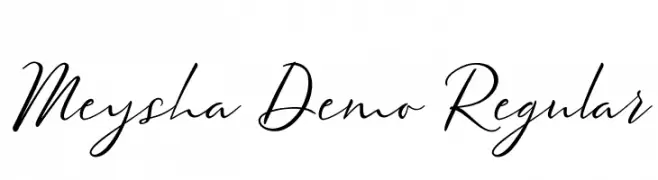
A graceful script font with flowing, interconnected letters and high contrast strokes.
An elegant script font with flowing, decorative cursive letters.
A graceful and elegant script font with flowing, cursive strokes.
A graceful script font with flowing, cursive strokes and elegant character design.
A cursive, handwritten-style font with elegant, flowing characters.